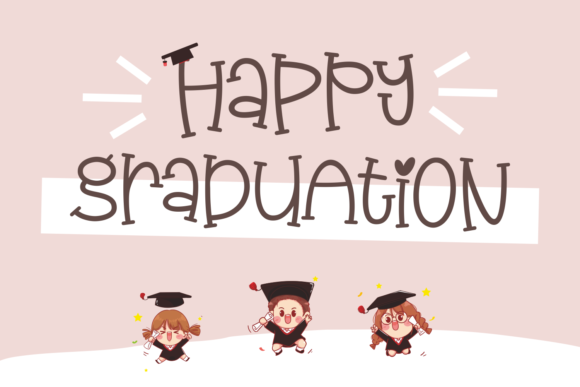
Hey Jenie Font
Hey Jenie is a cute and quirky display font. No matter the topic, this font will be an incredibly asset to your fonts’ library, as it has the potential to elevate any creation.